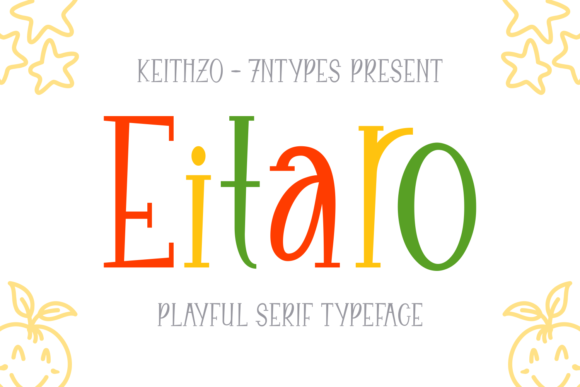
Embrace the captivating energy of Eitaro, a playful serif font that dances across the digital canvas like a playful breeze. Its characters, brimming with a youthful charm, captivate readers with their easy-going nature and effortless readability. Each letter, punctuated with a touch of whimsy, invites readers on a delightful visual adventure.
Immerse yourself in the world of Eitaro and discover a treasure trove of meticulously crafted doodles. These charming illustrations, inspired by the playful spirit of food and drink, add a touch of lightheartedness to your designs. Whether you're creating invitations, menus, or social media posts, Eitaro's playful doodles are guaranteed to leave a lasting impression.
Unleash your creativity with Eitaro's diverse range of applications. This versatile font family seamlessly adapts to a myriad of projects, effortlessly enhancing the visual appeal of posters, presentations, and marketing materials. Its playful nature adds a touch of charm to lesson plans and educational resources, captivating young minds with its whimsical aura.
Unlock the power of Eitaro and transform your designs into captivating masterpieces. Its playful spirit breathes life into any project, evoking a sense of joy and carefree adventure. Let Eitaro be your creative companion and embark on a design journey that's both memorable and enchanting.
With Eitaro, your designs will radiate a unique charm that captures attention and leaves a lasting impression. Experience the joy of creating with Eitaro and let your designs flourish with playful elegance. Embrace the magic of Eitaro today!